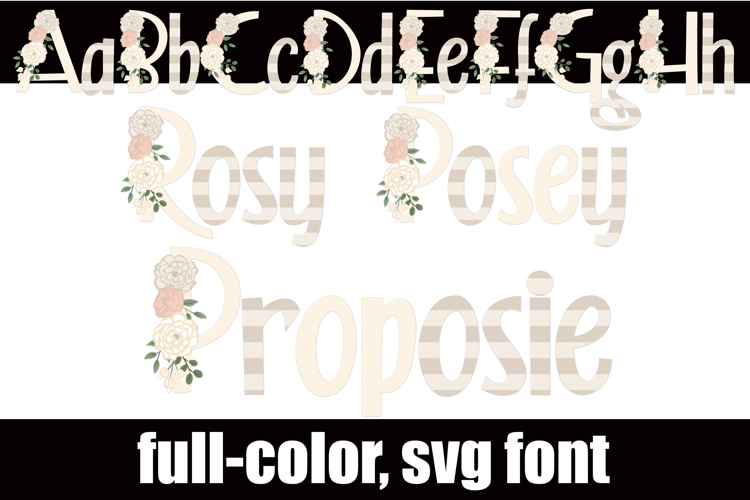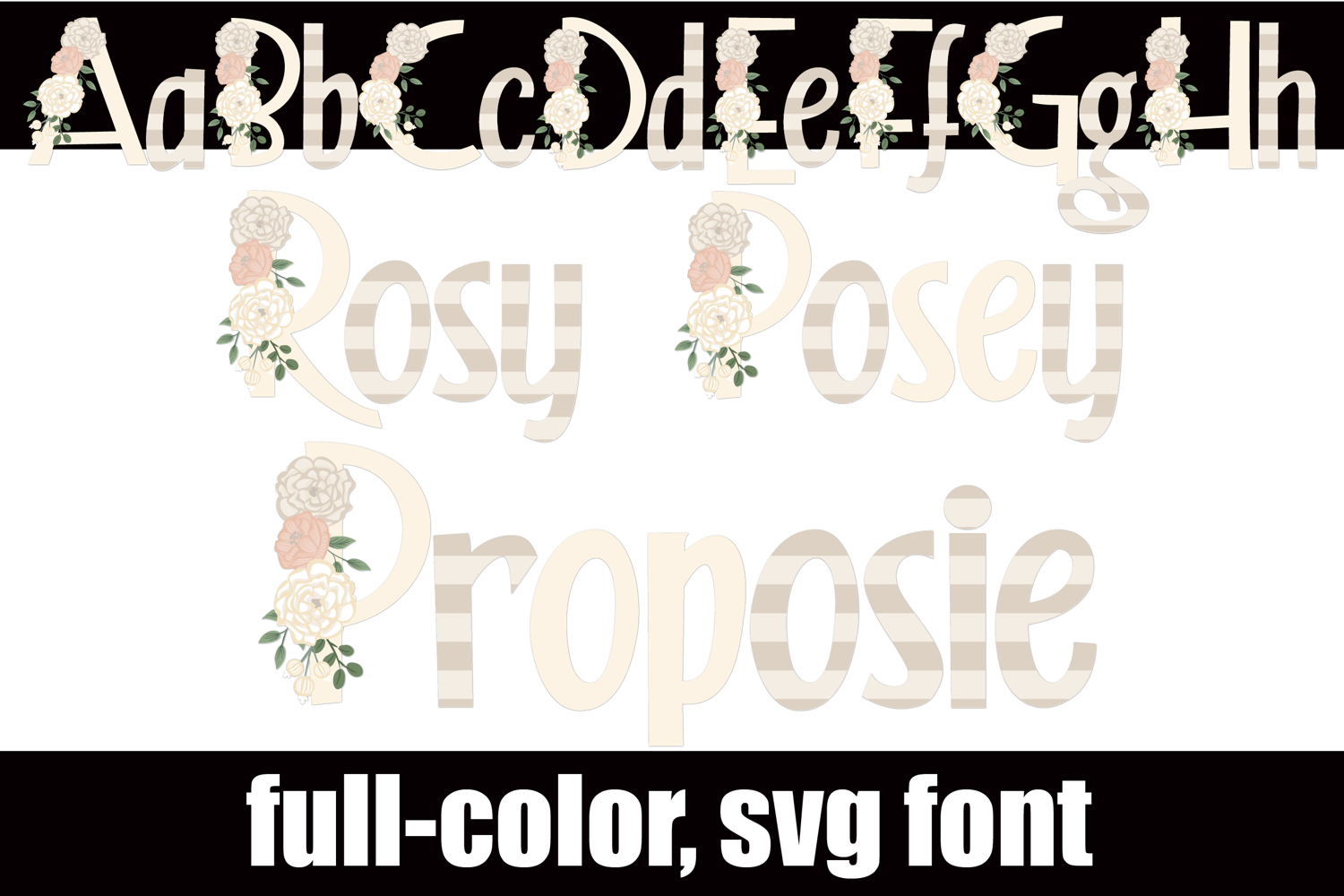
Rosy Posey Proposie Color Font
This full-color, sans serif font is in a pale color palette with beautiful florals throughout. There is an alt case of additional colors of each letter that you can access through your system's character map.